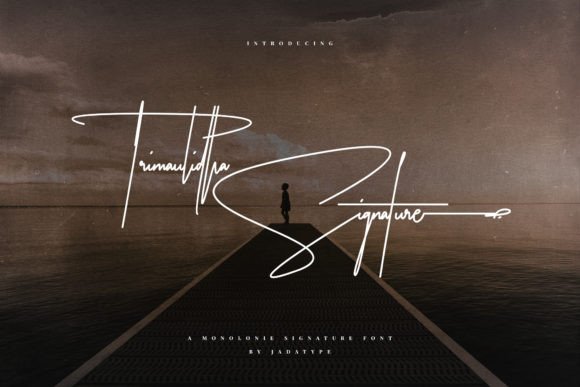
Introducing Trimaulidha Font, the captivating script font that unleashes the power of elegance and sophistication in your designs. Its delicate strokes and flowing curves create a timeless allure that evokes a sense of luxury and refinement.
With Trimaulidha Font, your business writing will transcend the ordinary, leaving a lasting impression on your clients and partners. Its carefully crafted characters exude professionalism and convey a message of confidence and authority. Whether you're creating logos, branding materials, or social media posts, Trimaulidha Font elevates your communication to new heights.
Step into a world of endless creative possibilities with Trimaulidha Font. Its versatility knows no bounds, effortlessly adapting to a wide range of design projects. From eye-catching product packaging to stunning advertisements, Trimaulidha Font transforms your ideas into captivating realities. Its hand-lettering style adds a touch of authenticity and charm, making your designs truly unique and memorable.
Experience the beauty and power of Trimaulidha Font today. Discover a world of elegance, sophistication, and endless creative possibilities. Let your designs shine with the brilliance of Trimaulidha Font, the ultimate choice for extraordinary business writing.